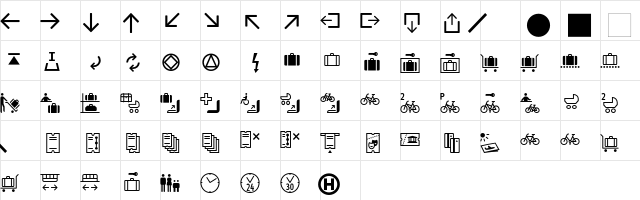
InfoPict-Two Regular
Design Context for InfoPict-Two Typeface
InfoPict-Two is a composed and adaptable typeface that performs quietly and consistently across a wide range of design contexts.